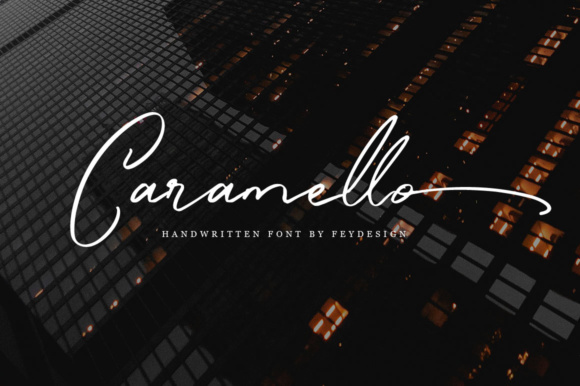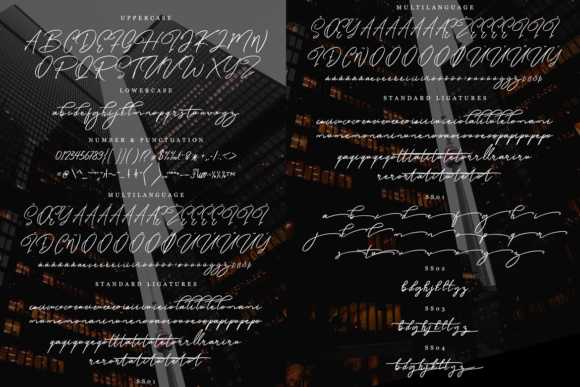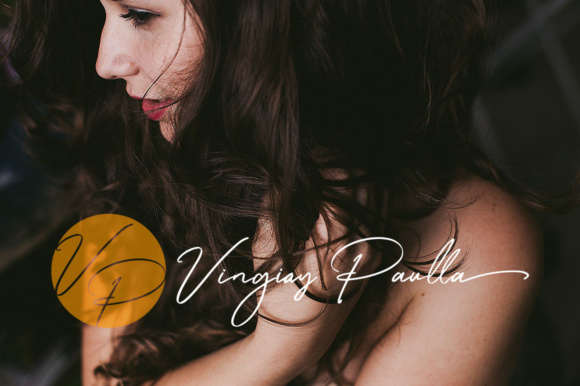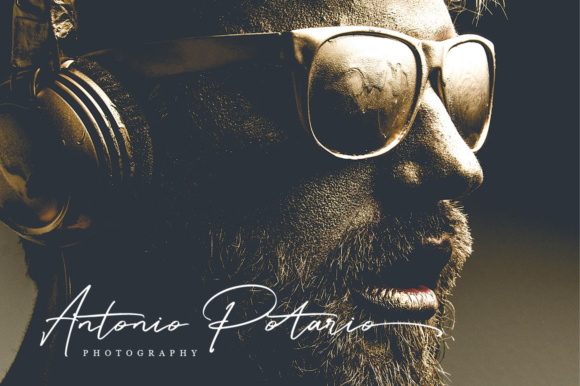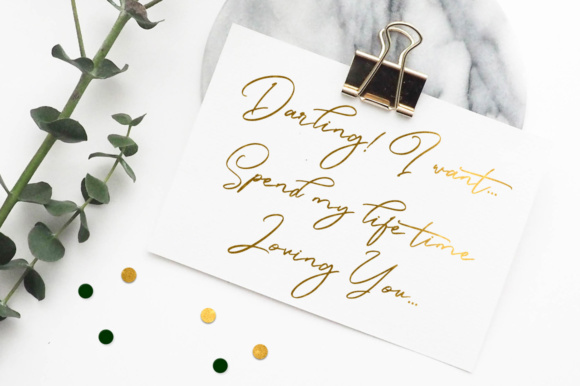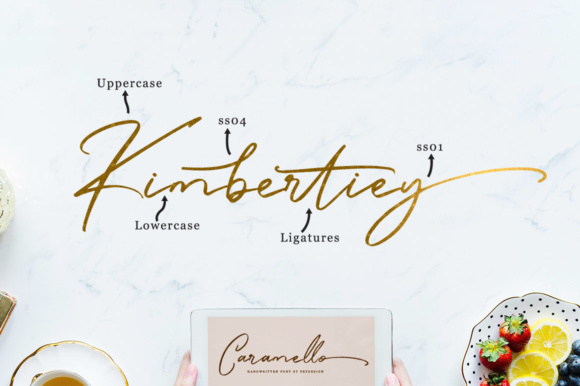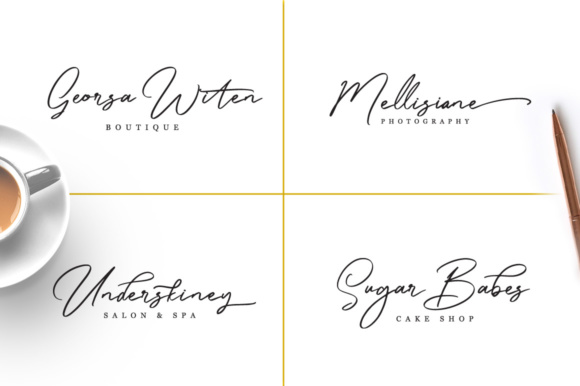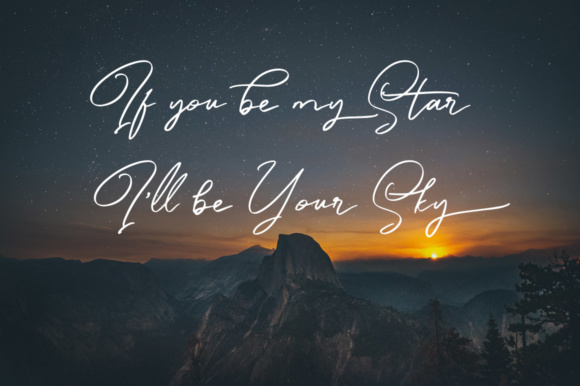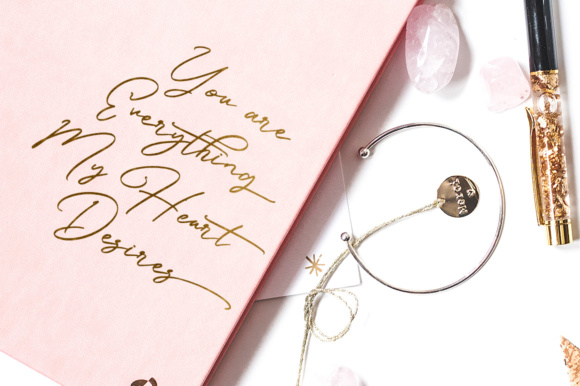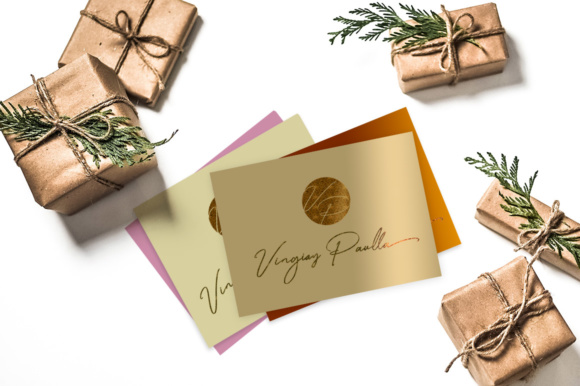
Caramello Font
About Caramello Font
The Caramello is a handwritten script font with a signature style. It’s suitable for design elements, weddings, events, t-shirts, logos, and any other design that needs a handwritten look.